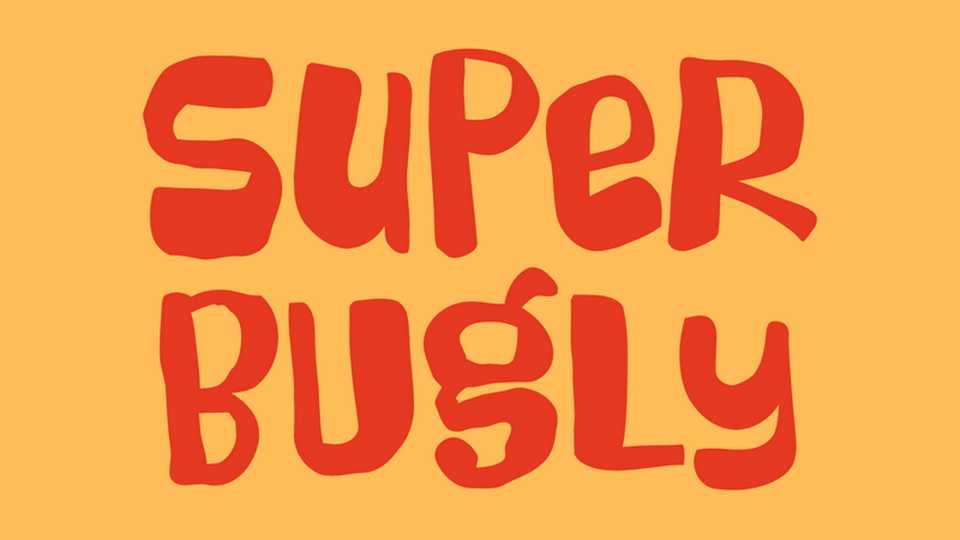
Download Super Bugly font, a quirky display typeface with an irregular, hand-drawn style and expressive personality. Its uneven strokes and organic shapes create a raw and playful aesthetic